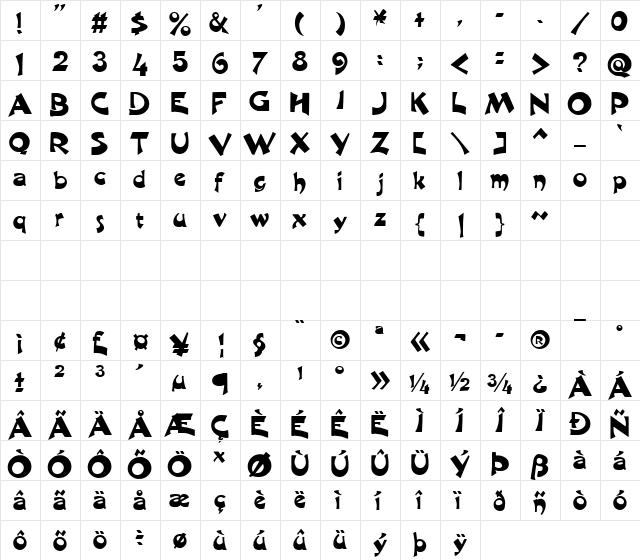
Darkness 3 Normal
Design Context for Darkness 3 Typeface
Darkness 3 is a composed and adaptable typeface that performs quietly and consistently across a wide range of design contexts.
Pro Tip: Use Darkness 3 in both headline and body roles to test its range before committing to a single application.